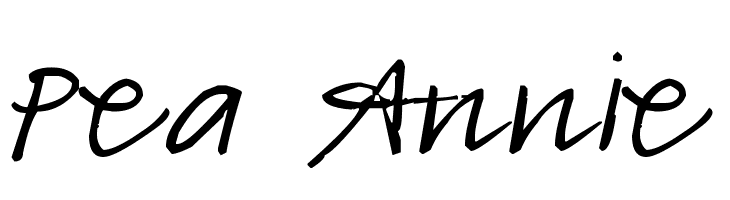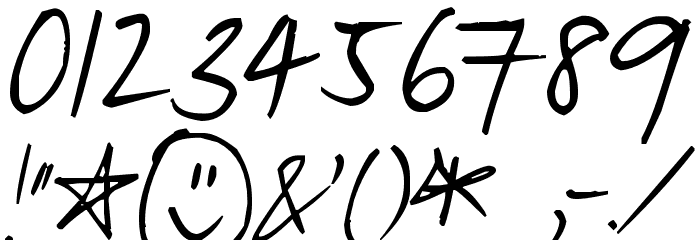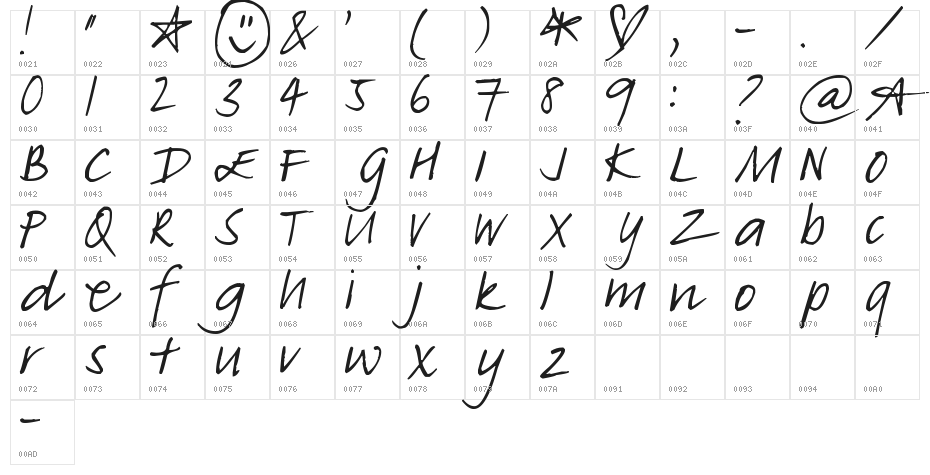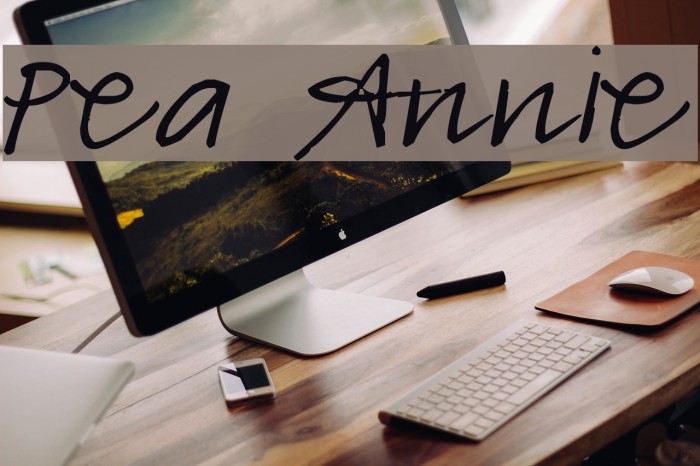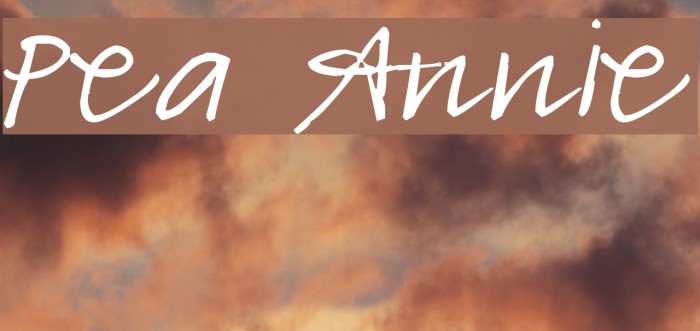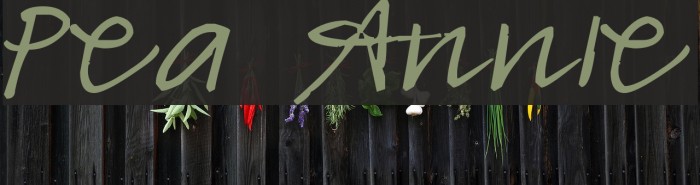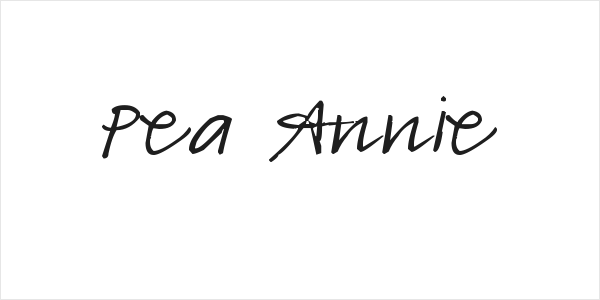
Pea Annie Font
Pea Annie Description
This font exudes a casual and playful handwritten style, characterized by its fluid and slightly irregular strokes. The letters are connected in a way that mimics natural handwriting, giving it a personal and informal touch. The uppercase and lowercase letters maintain a consistent flow, while the numerals and special characters complement the overall aesthetic. The font's organic feel makes it suitable for projects that require a personal or creative touch, such as invitations, greeting cards, or artistic designs.
| Proposed Projects | Ideal for invitations, greeting cards, personal notes, and creative projects. |